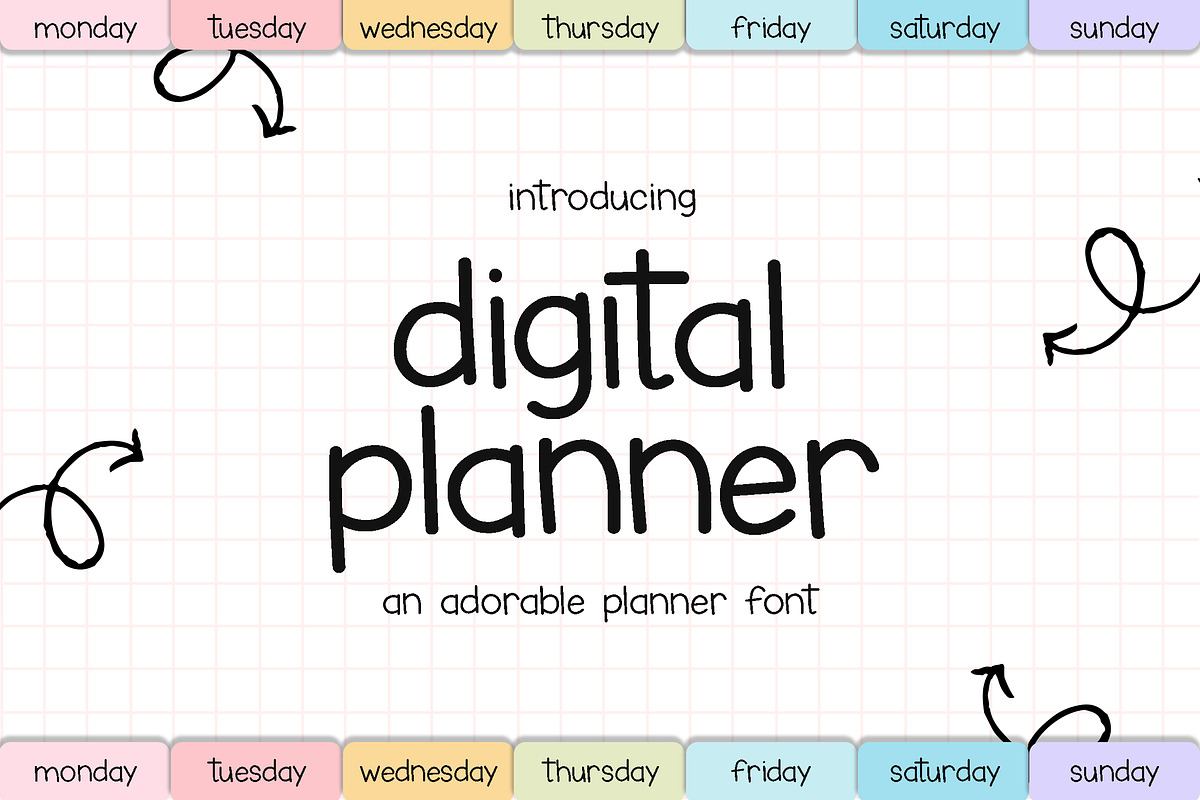
Digital Planner Font Free Download
Digital Planner Font Free Download is a clean and modern typeface designed specifically for digital planners, calendars, and organizational tools. With its legible, crisp letterforms and structured design, Digital Planner is perfect for creating easy-to-read planner pages, to-do lists, journal entries, and notes.
This font offers a minimalist aesthetic that ensures your digital documents look sleek and professional while remaining user-friendly. Whether you’re crafting a personalized planner template, designing an app interface, or organizing your digital workspace, Digital Planner adds both functionality and style to your typography.